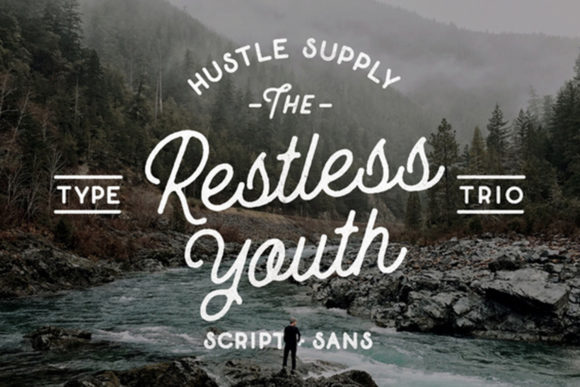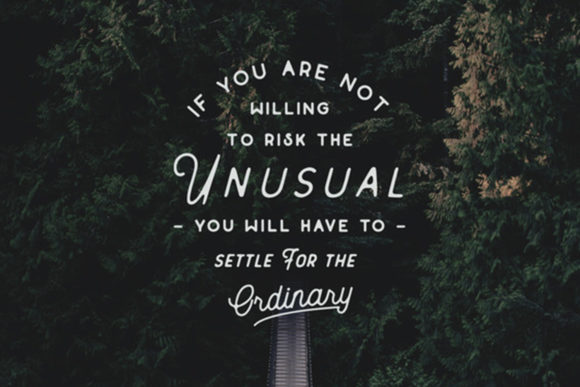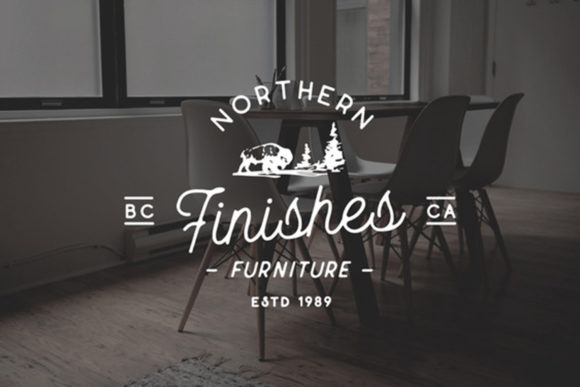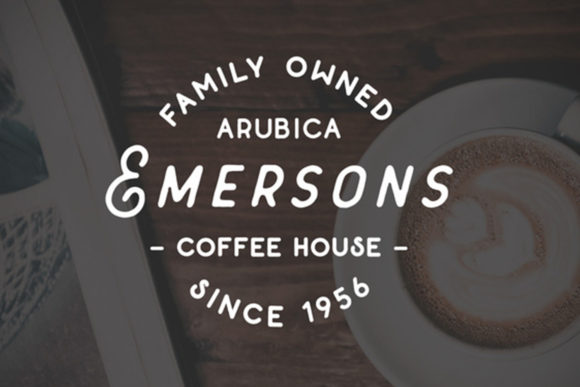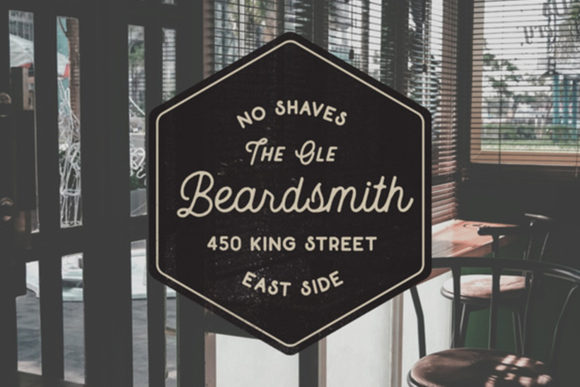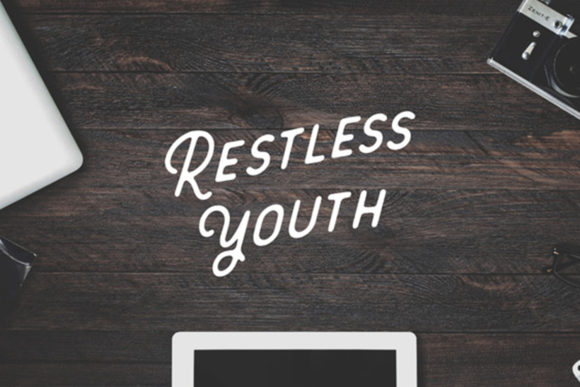
Restless Youth Font
About Restless Youth Font
Restless Youth is a great handwritten font. It comes in 4 styles, each can be paired together for an outstanding look! It will elevate a wide range of design projects to the highest level, be it branding, headings, wedding designs, invitations, signatures, logos, labels, and much more!